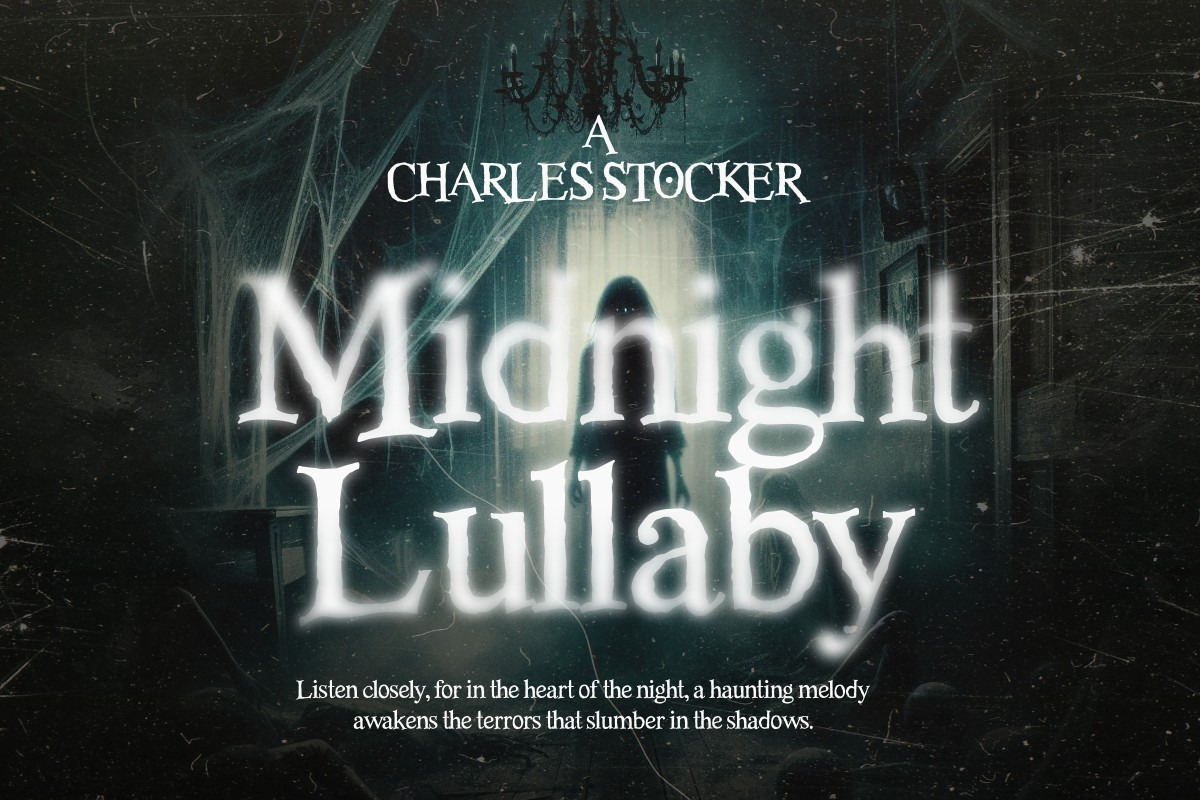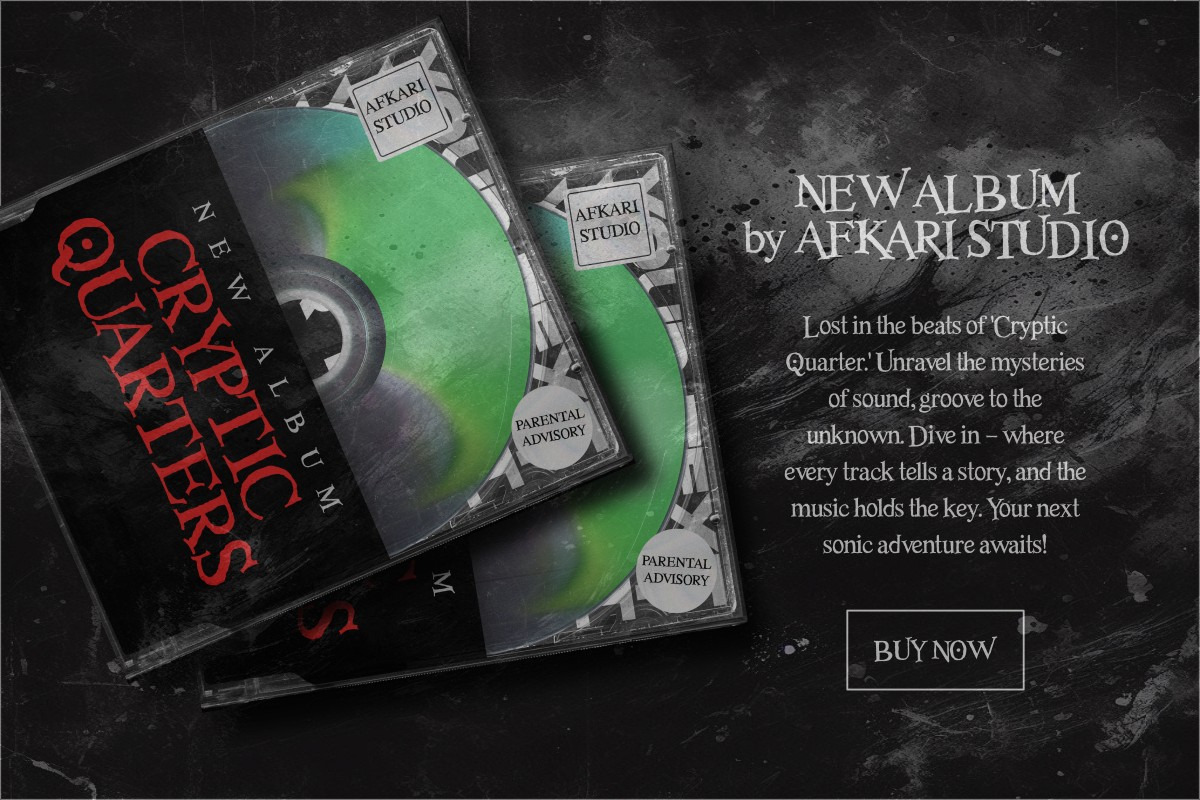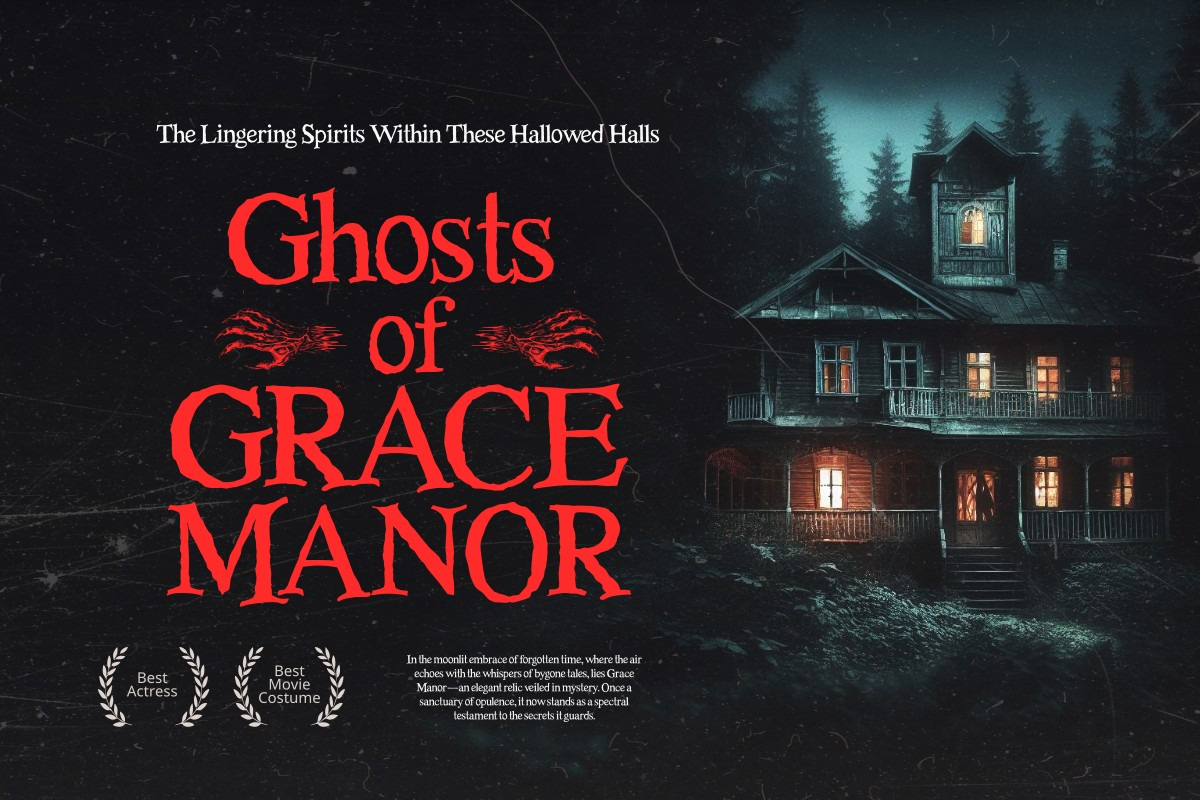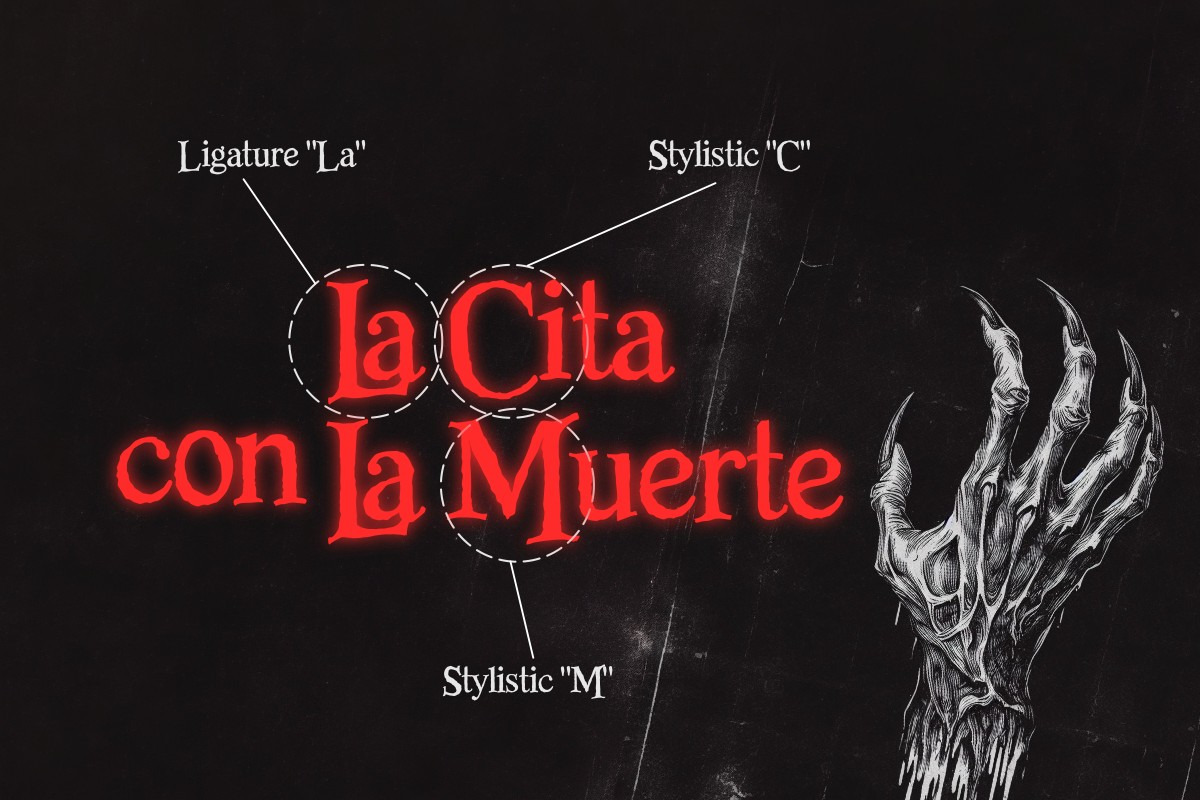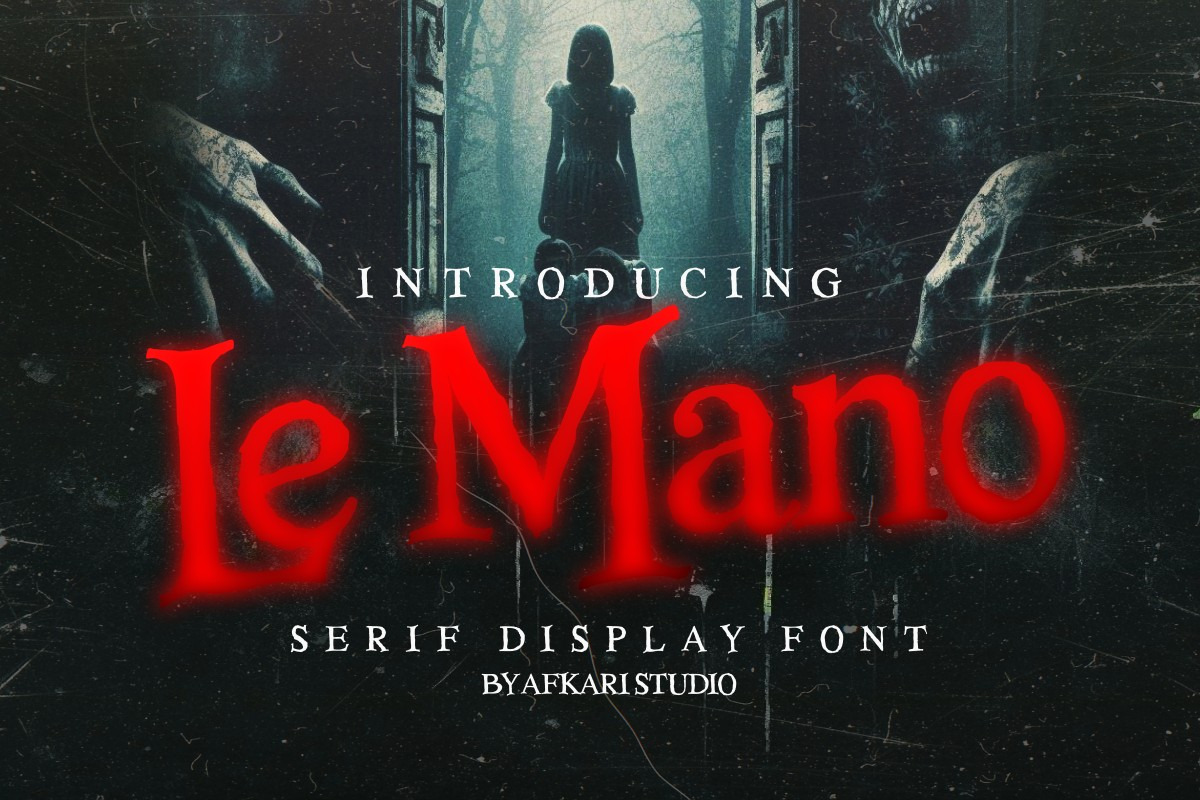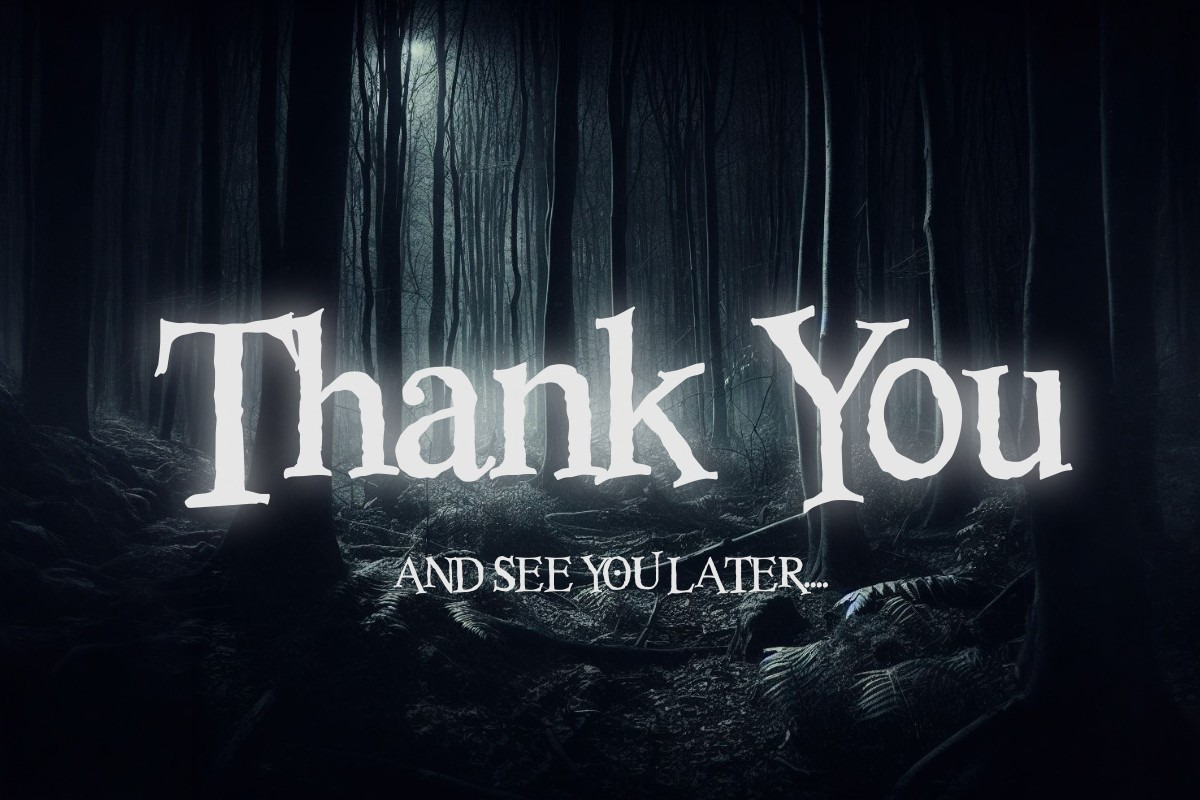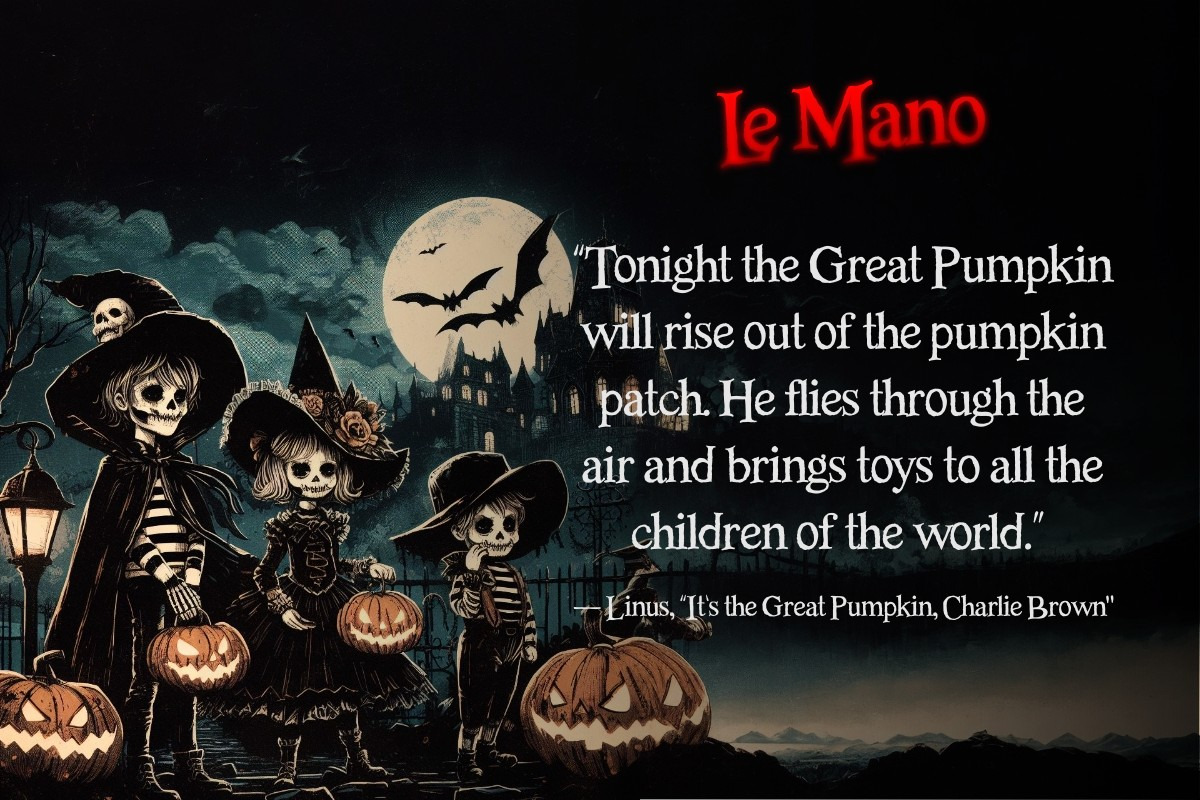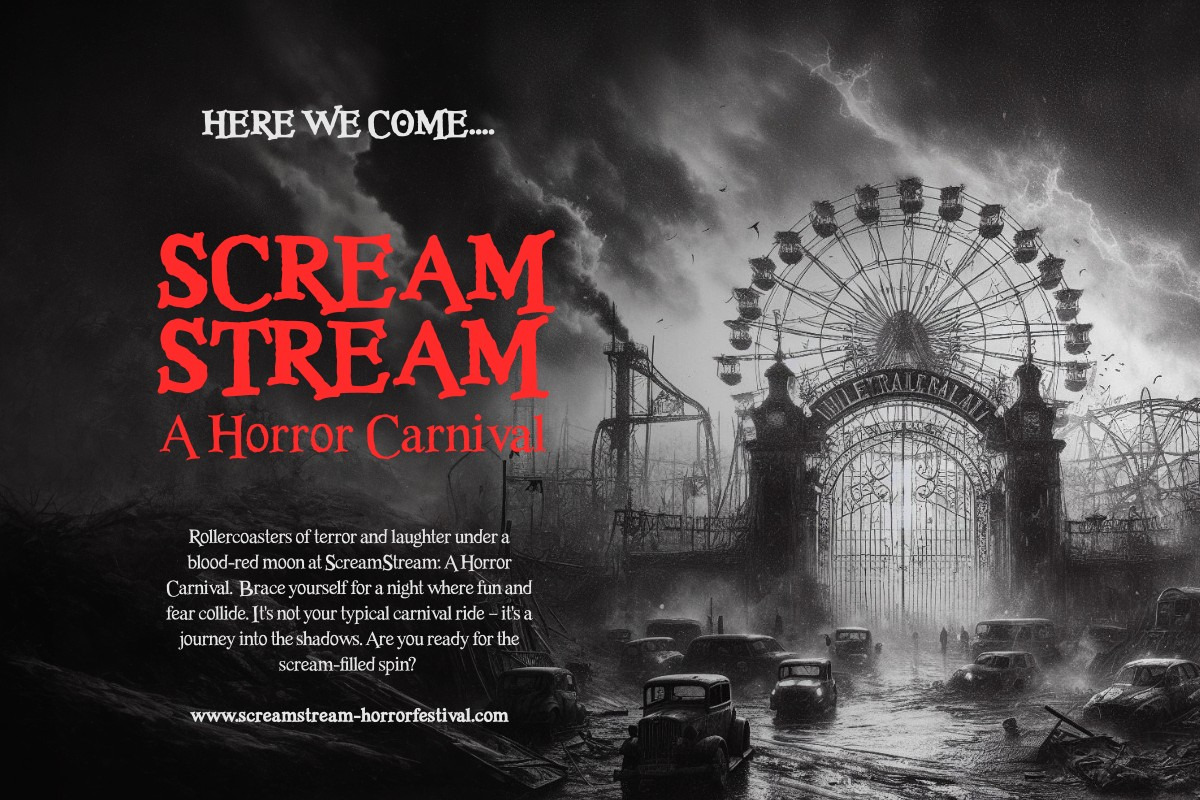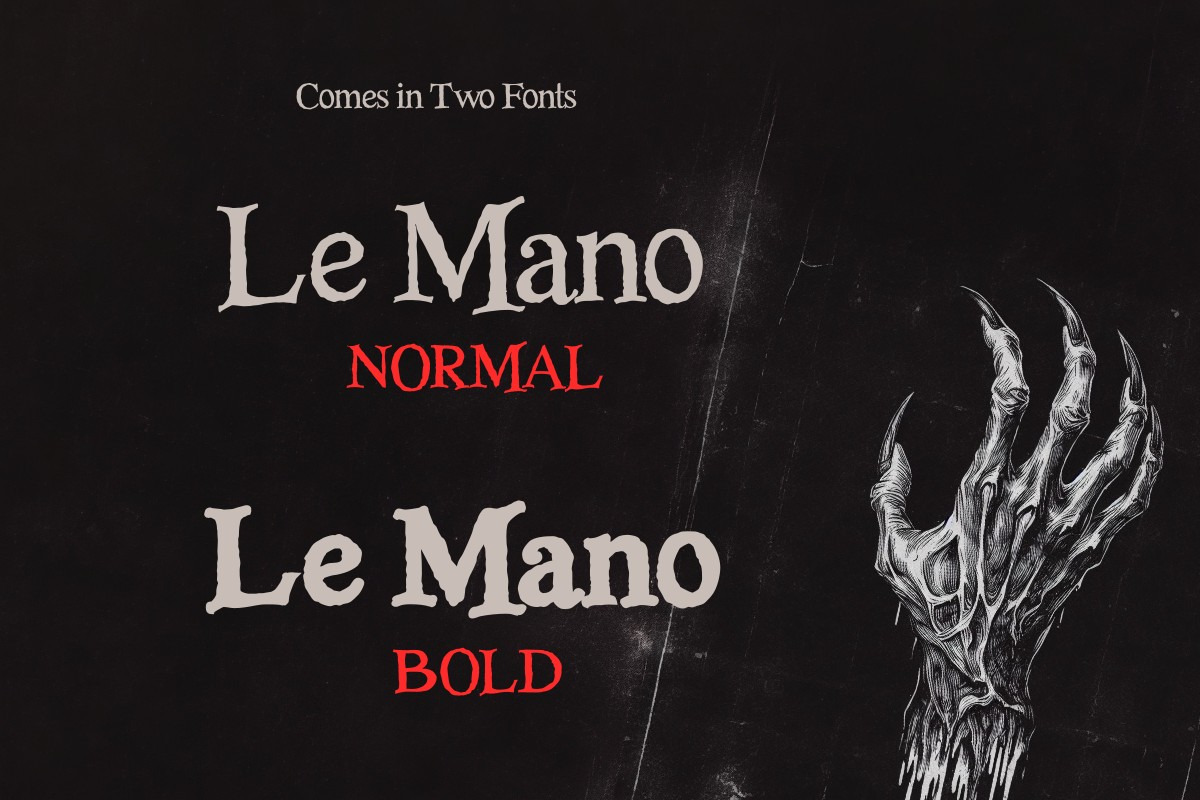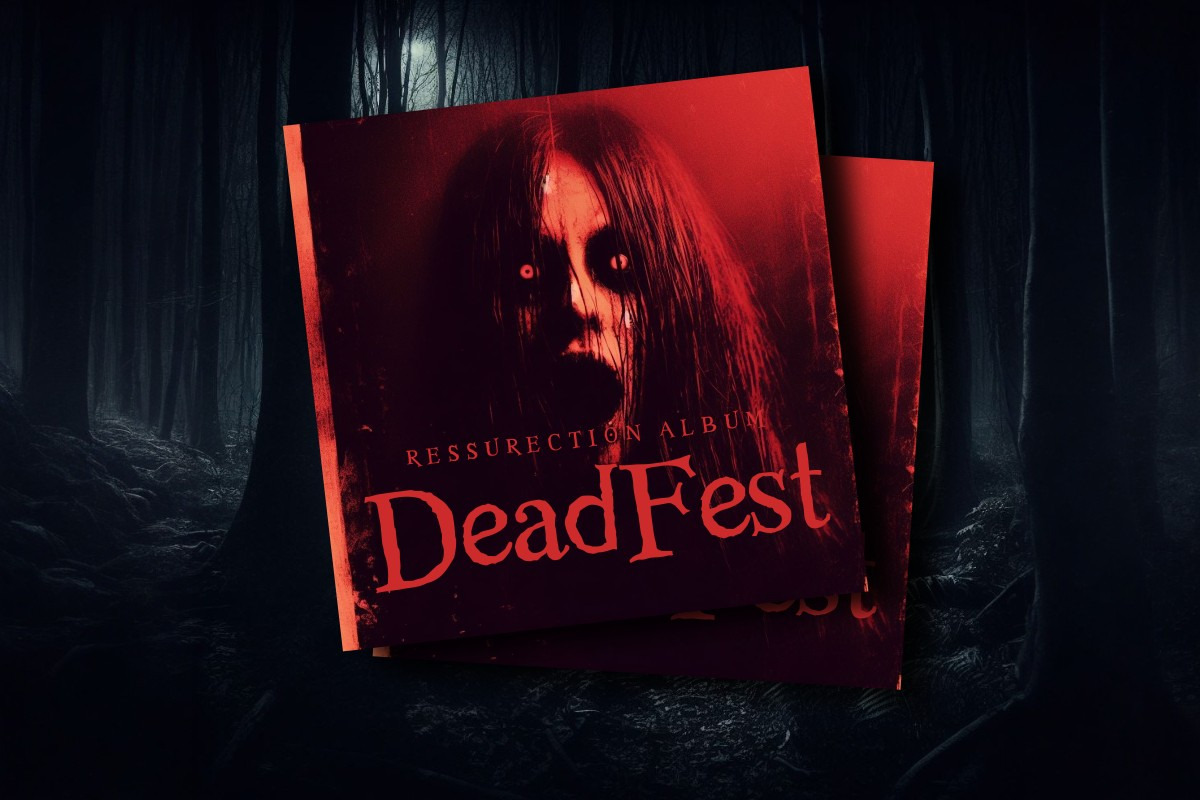
Le Mano - Unique Serif Display Font
"Le Mano" is a captivating serif display font that seamlessly blends classic elegance with modern sophistication. Crafted with precision, its graceful strokes and refined serifs exude a sense of timeless charm, making it a versatile choice for various design projects.
This font commands attention with its distinctive and carefully balanced letterforms, each meticulously designed to offer a harmonious flow and readability. The deliberate spacing and clean lines ensure clarity, even at larger sizes, while maintaining a graceful presence in smaller text.
- Uppercase, Lowercase, Number, and Punctuation
- Standard and Special Ligatures and alternates
- Multilingual Support, ä, ö, ü, Ä, Ö, Ü, ß, ¿, and ¡.
Utilizing this font for titles, headings, or focal points within a design can create a unique juxtaposition that captures attention and adds a touch of sophistication to the fun and spooky theme.
If you're looking to insert "Le Mano" into your designs for these themes, consider experimenting with its application in headlines, titles, or accent text, horor theme, horor font, leveraging its elegant yet slightly haunting aesthetic to amplify the overall feel of the design.